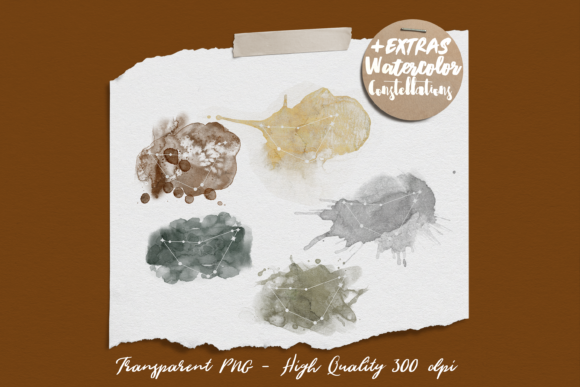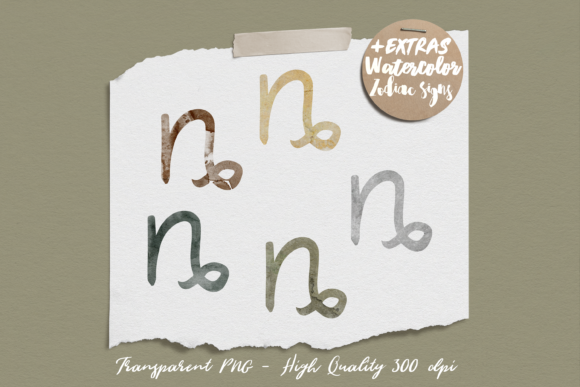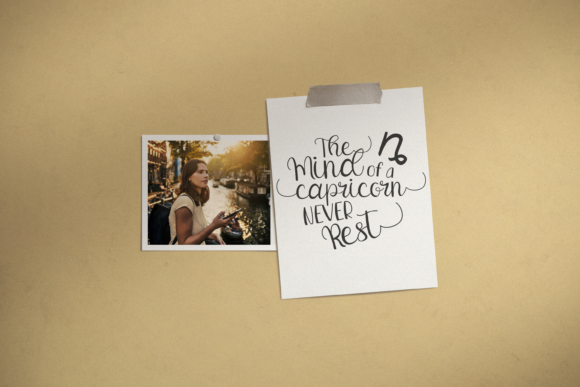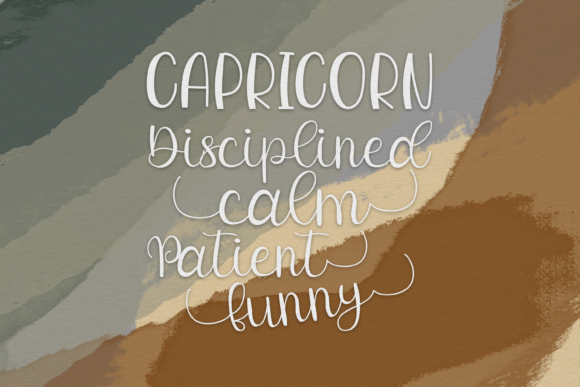
About Calm Capricorn Duo Font
Calm Capricorn Duo consists of two fonts (script and display) designed to complement each other perfectly. Together or apart, these fonts are ideal for adding a chic and cheery touch to your crafts. This font is PUA encoded which means you can access all glyphs and swashes with ease!